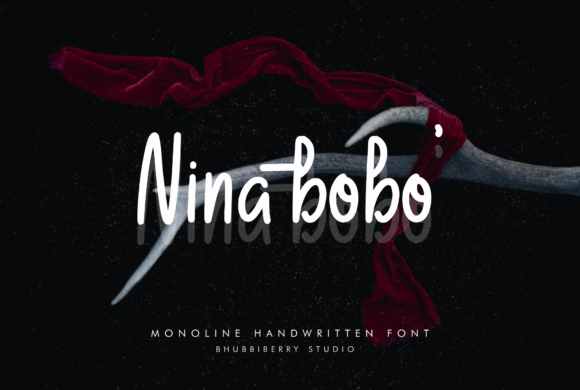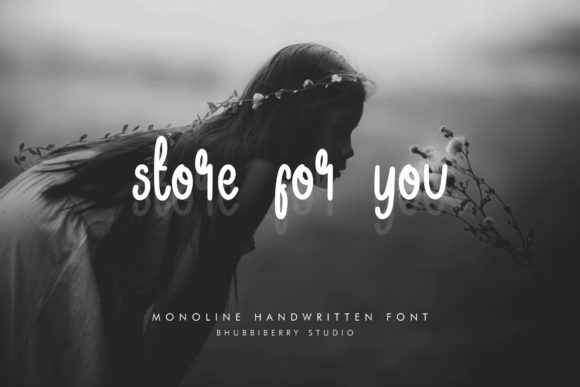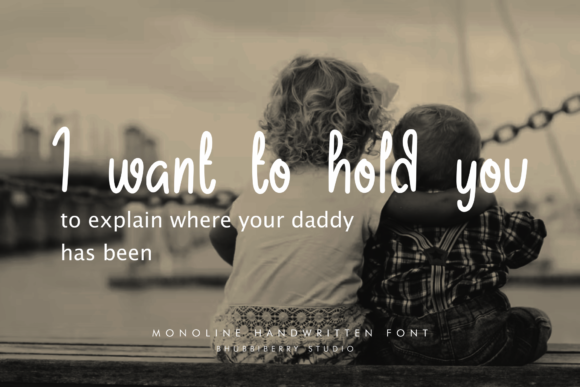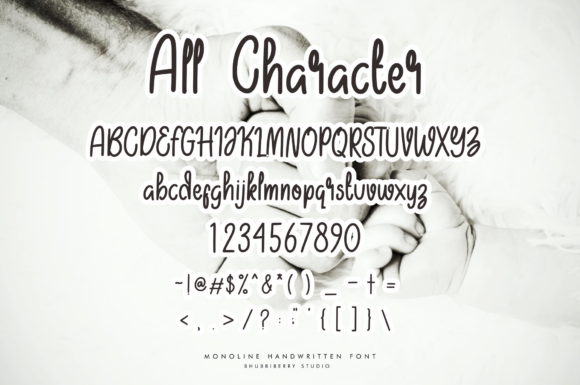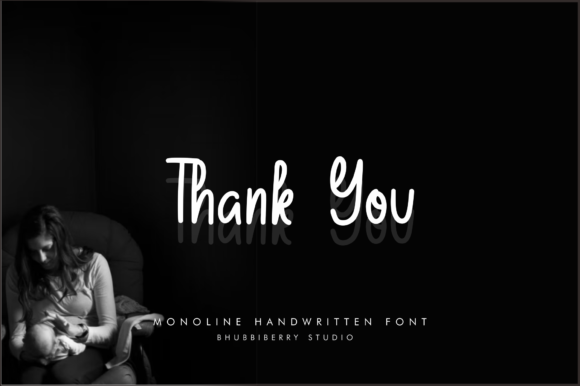
Lullaby Font
About Lullaby Font
Lullaby emerges as a trendy handwritten monoline font, making it the optimal choice for crafting eye-catching logos, establishing memorable branding, and conveying impactful quotes. With each letter bearing a unique and beautiful touch, Lullaby breathes life into your designs, adding a distinct charm that captivates the viewer.
The monoline style of Lullaby contributes to its trendiness, offering a seamless and contemporary appearance that aligns well with current design aesthetics. The font’s versatility shines through as it effortlessly adapts to various applications, providing a dynamic and engaging visual experience.
Whether you’re looking to create a standout logo that leaves a lasting impression, establish a cohesive and appealing brand identity, or present impactful quotes that resonate with your audience, Lullaby excels in bringing creativity to life. The handwritten quality of the font adds a personalized touch, fostering a connection between your designs and the viewer.
Lullaby’s unique and beautiful touch ensures that every letter contributes to the overall visual appeal of your creations. This attention to detail enhances the font’s ability to make your design come alive, offering a harmonious and captivating aesthetic.
In summary, Lullaby is not just a font; it is a trendy and versatile design tool that elevates your creative projects. Whether used for logos, branding, or quotes, its handwritten monoline style adds a contemporary and personalized flair to your designs. Bring your creations to life with Lullaby, making them stand out with a unique and captivating charm.